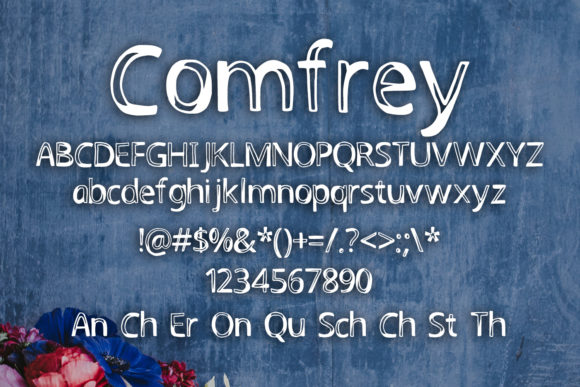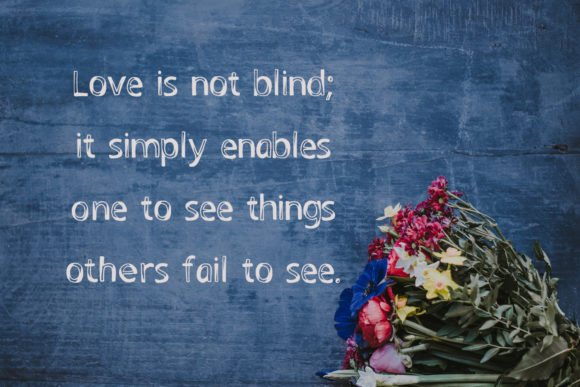
Introducing Comfrey Font: Elevate Your Designs with a Simple yet Modern Display Font
In the world of typography, fonts play a crucial role in making or breaking a design. A well-chosen font can instantly elevate your creative project, making it stand out from the crowd. If you’re a designer, crafter, or simply someone who loves to dabble in creative pursuits, you’re in luck! Today, we’re excited to introduce you to Comfrey Font, a simple and modern display font that’s sure to take your designs to the next level.
What is Comfrey Font?
Comfrey Font is a beautiful, modern display font that’s perfect for adding a touch of elegance and sophistication to your creative projects. With its clean lines, simple shapes, and highly legible design, Comfrey Font is ideal for use in a wide range of applications, from branding and advertising to crafting and DIY projects.
Key Features of Comfrey Font
- Simple and Modern Design: Comfrey Font boasts a sleek, contemporary design that’s perfect for creating modern and stylish visuals.
- Highly Legible: The font’s clean lines and simple shapes make it highly legible, even at small sizes.
- Versatile: Comfrey Font can be used in a wide range of creative projects, from digital designs to print materials.
- Elegant and Sophisticated: The font’s elegant design makes it perfect for adding a touch of sophistication to your projects.
How to Use Comfrey Font in Your Designs
Comfrey Font is incredibly versatile, making it perfect for use in a wide range of creative projects. Here are just a few ideas to get you started:
- Branding and Advertising: Use Comfrey Font to create eye-catching logos, advertisements, and marketing materials that are sure to grab attention.
- Crafting and DIY Projects: Add a touch of elegance to your crafting and DIY projects, such as handmade cards, gift tags, and scrapbooking pages.
- Digital Designs: Use Comfrey Font to create stunning digital designs, including social media graphics, blog posts, and website headers.
- Print Materials: Comfrey Font is perfect for use in print materials, such as brochures, flyers, and business cards.
Why Choose Comfrey Font?
With so many fonts to choose from, why should you choose Comfrey Font? Here are just a few reasons why Comfrey Font stands out from the crowd:
- Unique and Modern Design: Comfrey Font boasts a unique and modern design that’s sure to make your projects stand out.
- High-Quality: The font is designed to high-quality standards, ensuring that it looks great in any design.
- Easy to Use: Comfrey Font is incredibly easy to use, making it perfect for designers and crafters of all skill levels.
In conclusion, Comfrey Font is a simple and modern display font that’s perfect for adding a touch of elegance and sophistication to your creative projects. With its clean lines, simple shapes, and highly legible design, Comfrey Font is ideal for use in a wide range of applications. Whether you’re a designer, crafter, or simply someone who loves to dabble in creative pursuits, Comfrey Font is sure to become a go-to font in your collection. So why wait? Download Comfrey Font today and start creating stunning designs that are sure to impress!
Add this beautiful display font to each of your creative ideas and notice how it makes them stand out!